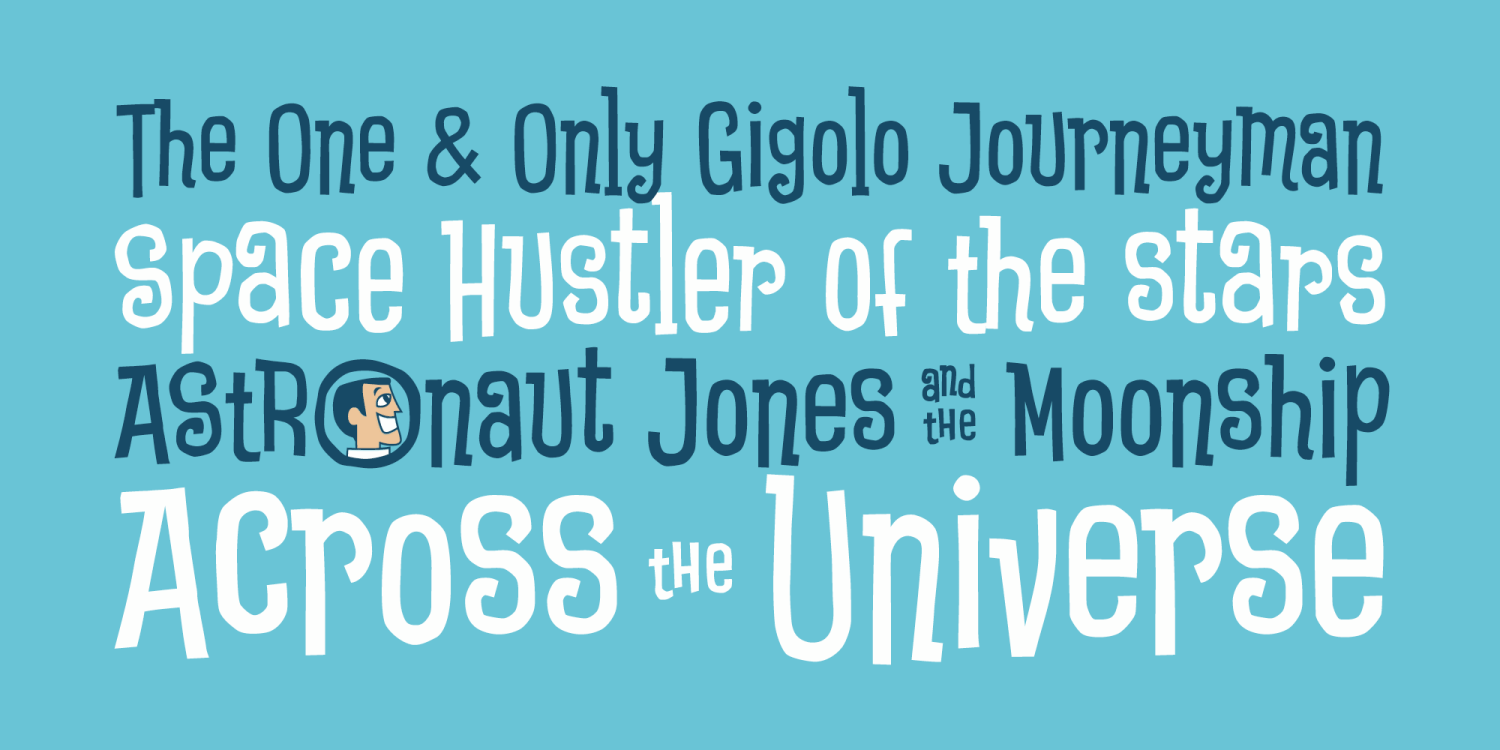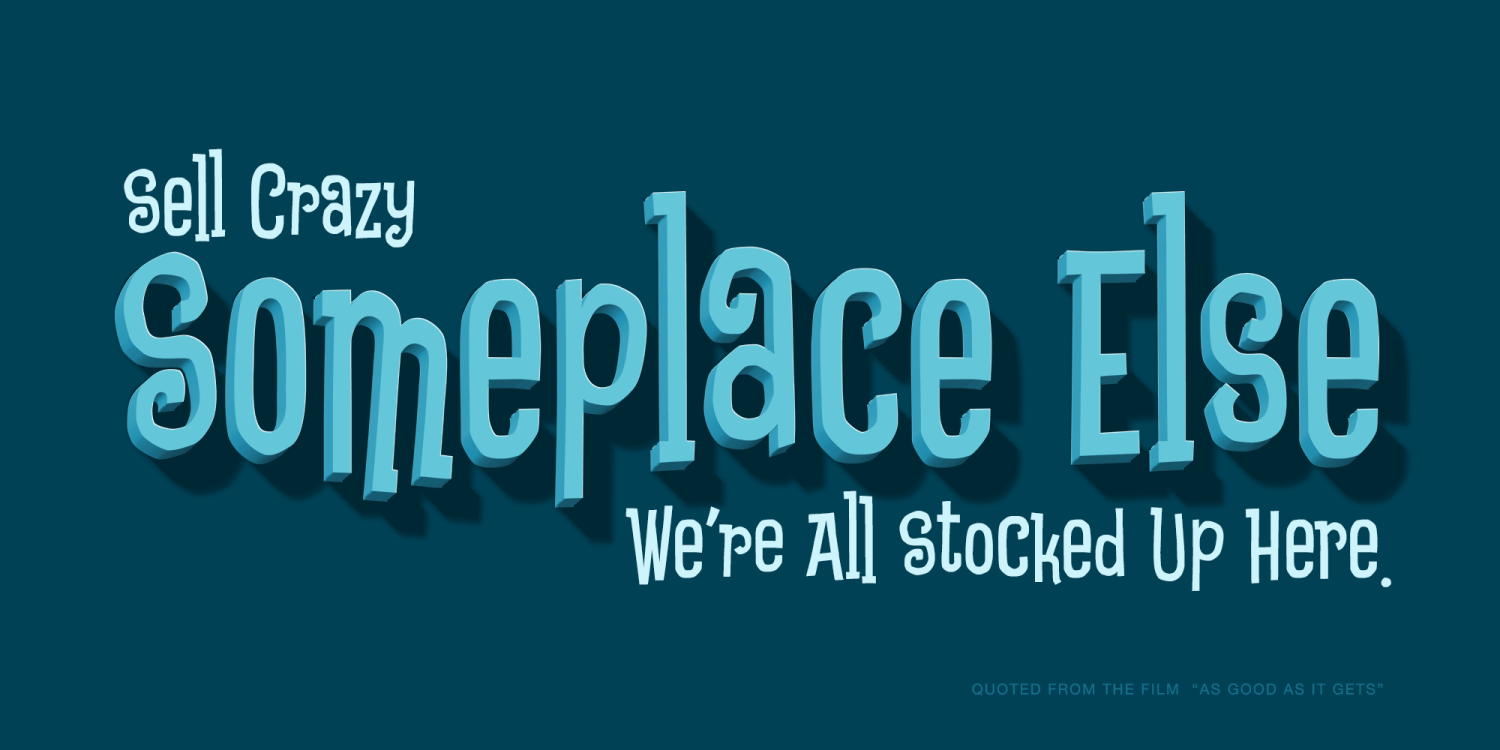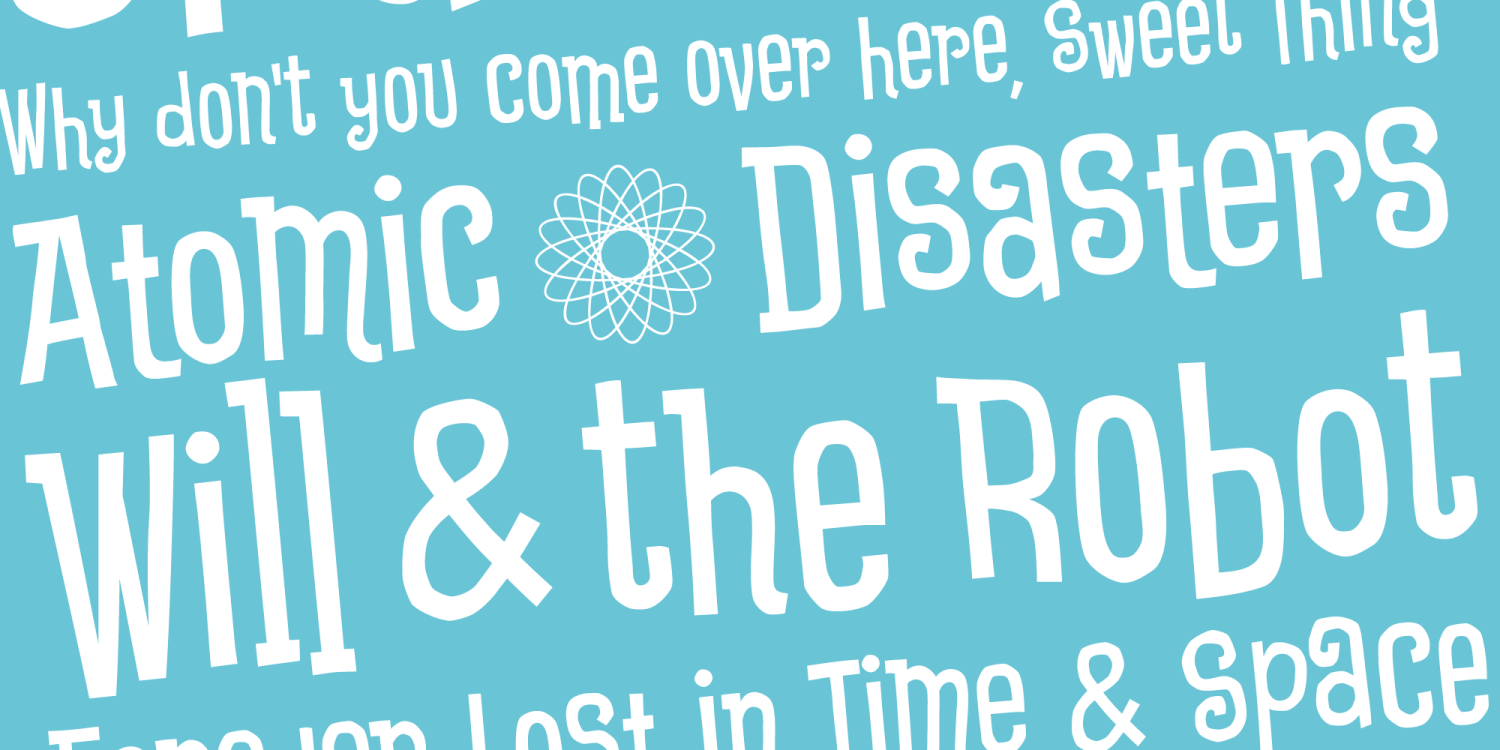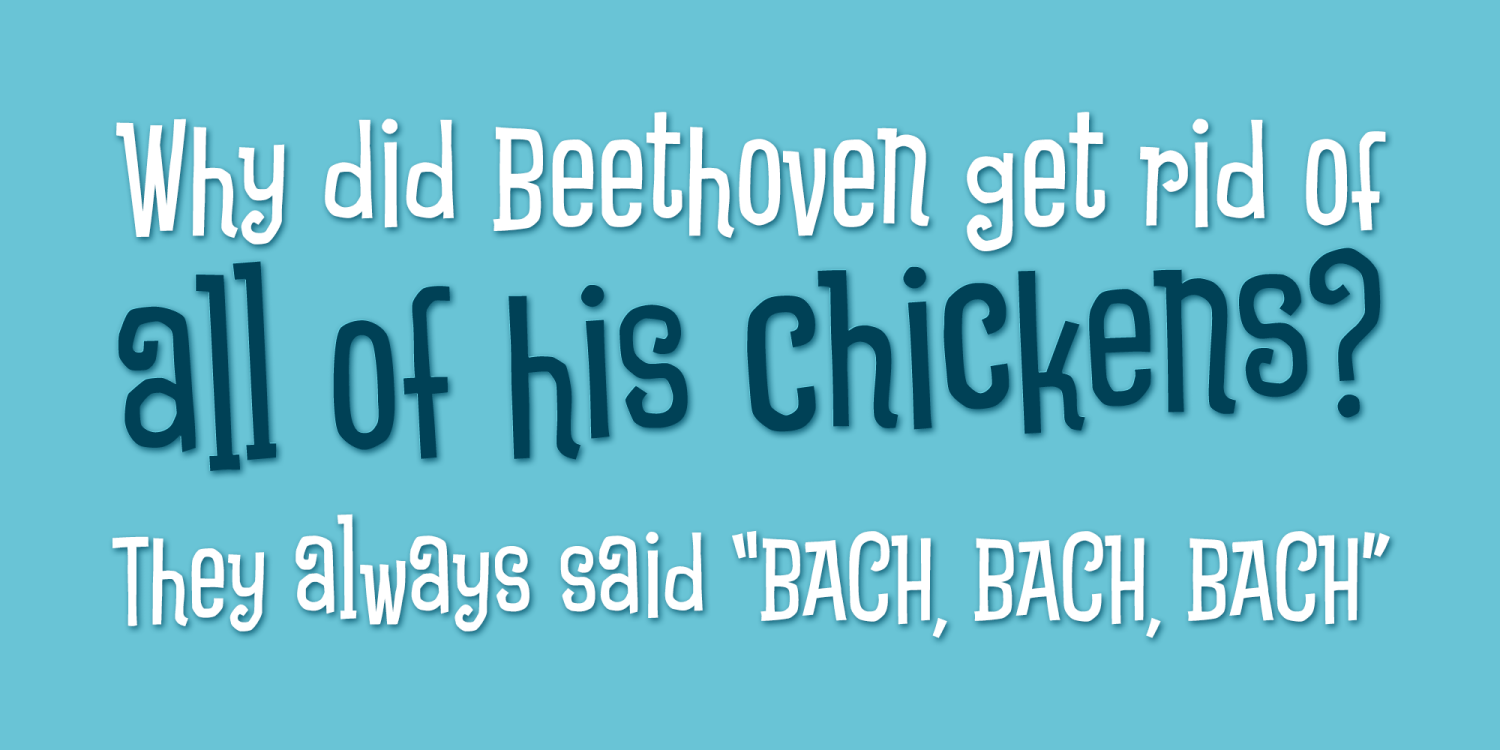
Astronaut Jones PB
Font Family by Pink Broccoli
A light hearted comic and clumsy typestyle inspired by an old pulp novel called "The Astronaut". Several fun ornament characters can be accessed by turning on Discretionary alternates and typing "jones" for the Astronaut Head in an O, "atom" for a spirograph atom symbol, "little dipper" and "big dipper" for the constellations, as well as alternate "the", "and", and stacked "and the" characters.